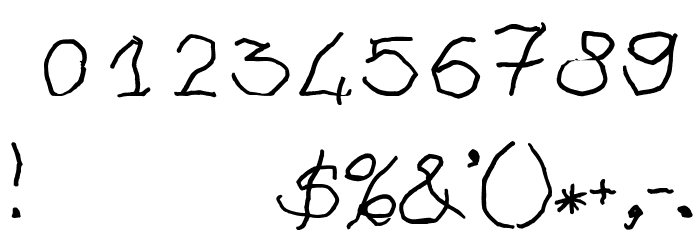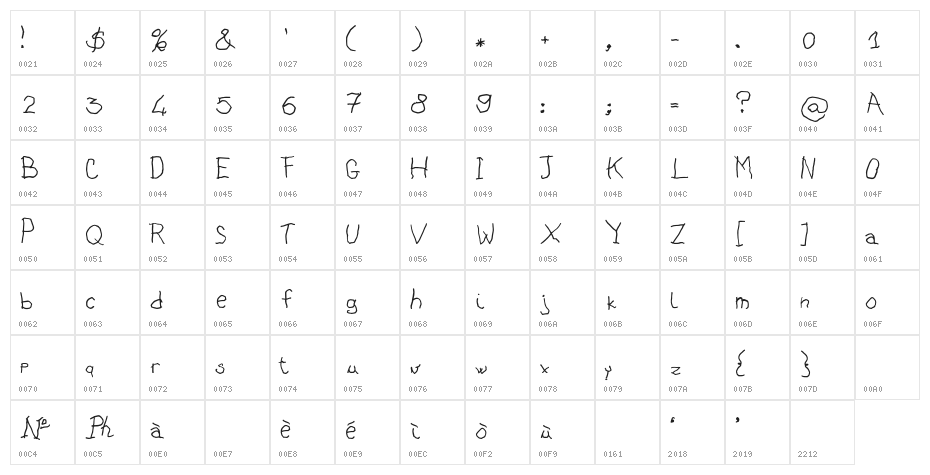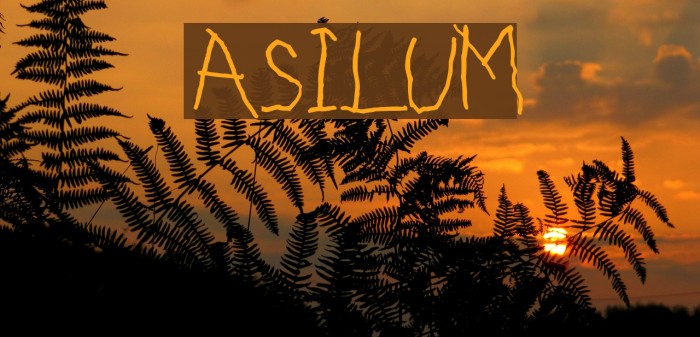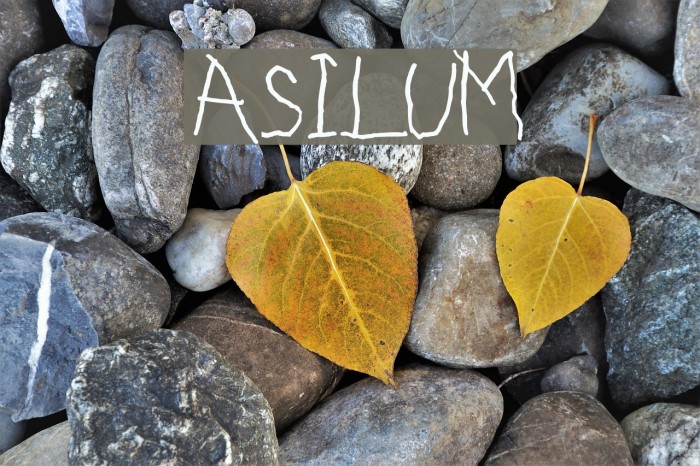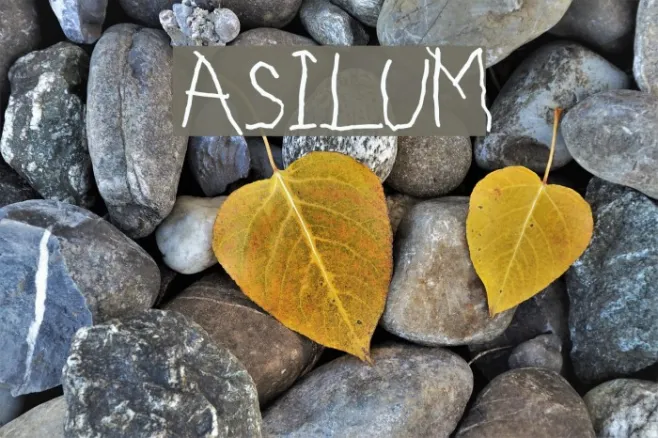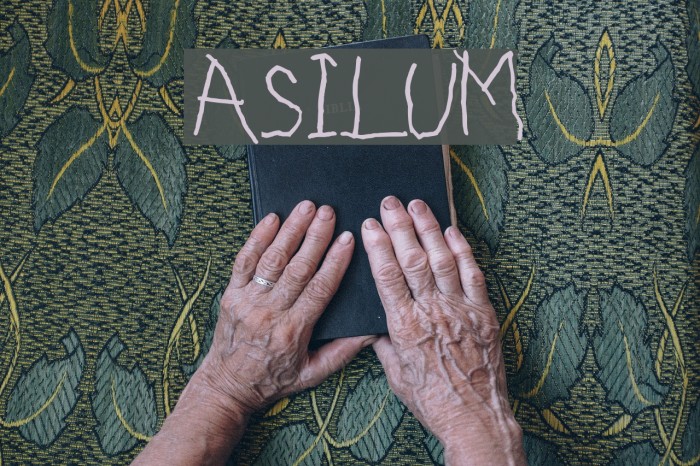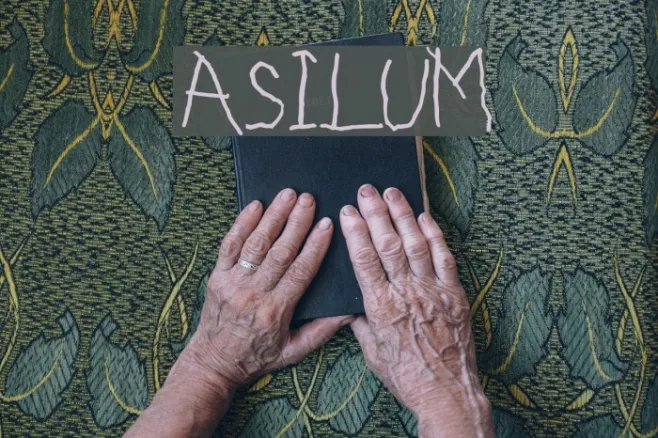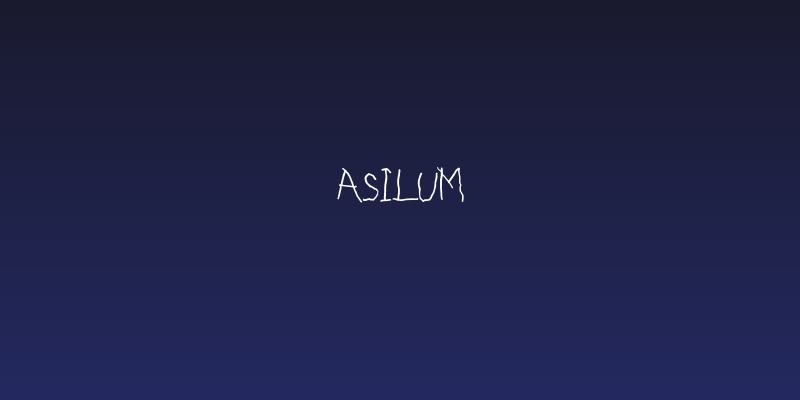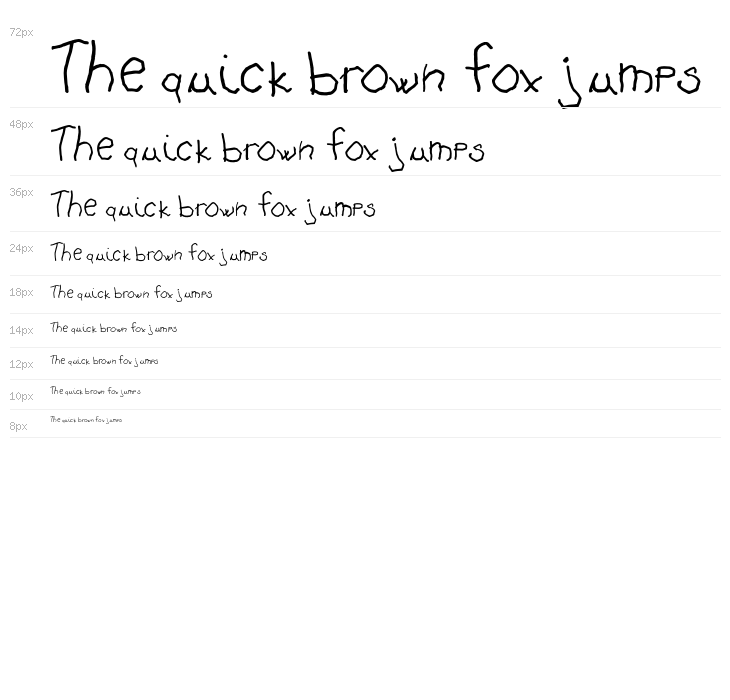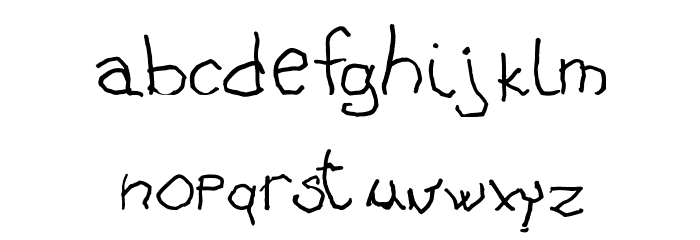
ASILUM Font
ASILUM Description
This font exhibits a unique, hand-drawn style with an irregular, slightly chaotic appearance. The letters are unevenly shaped, giving it a raw and organic feel. The strokes are bold and vary in thickness, adding to the font's distinctive character. The uppercase and lowercase letters maintain a consistent style, with quirky, jagged edges and a playful, yet slightly eerie vibe. Numbers and special characters follow the same design principles, ensuring a cohesive look across all glyphs. This font is perfect for projects that require a touch of whimsy or a hint of madness, making it ideal for creative and unconventional designs.
| Proposed Projects | Ideal for horror-themed posters, creative art projects, Halloween invitations, or any design needing a whimsical, eerie touch. |